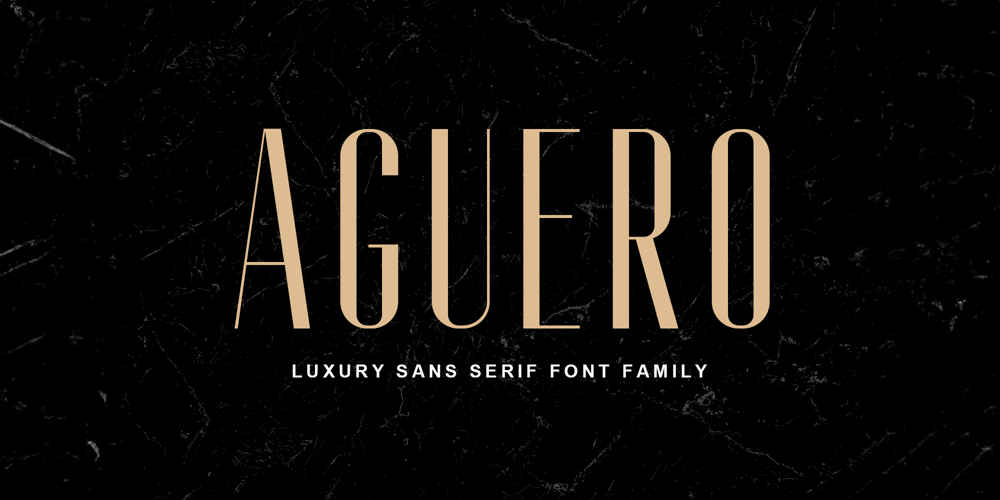
Aguero Sans
Aguero Sans font
Aguero Sans Font Family was designed by Trio Nazzar Saputra, Wahyu Hadi Yuana and published by Craft Supply Co. Aguero Sans contains 2 styles and family package options. Aguero Sans – Font Family is a modern serif font family whose design refers us to the style of modern sans serif. The distinctive features of Aguero Sans – Font Family are the relatively low contrast of strokes, the slightly squarish shapes of round characters and the emphasized business like simplicity.